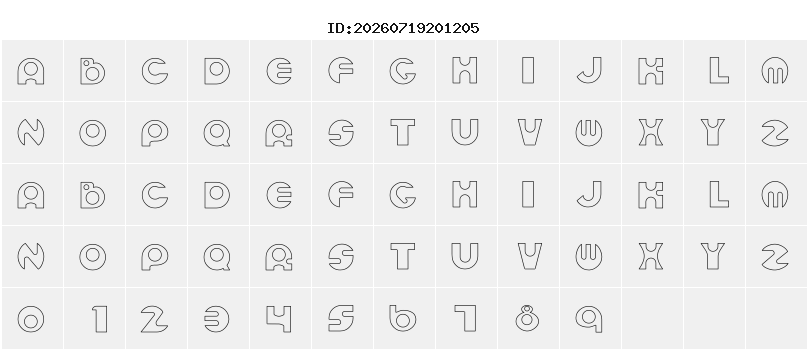
Espheres Hollow Preview
• Font Name: Espheres Hollow
• Full Font Name: Espheres Hollow
About Espheres Hollow.ttf
Espheres Hollow.ttf is a modern, elegant sans-serif font designed for ultimate readability and visual harmony. Perfect for branding, headlines, web design, and print materials.